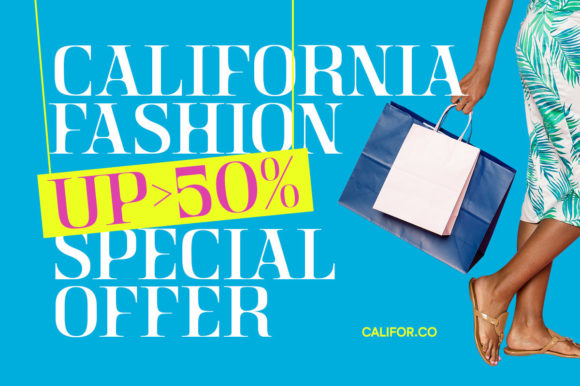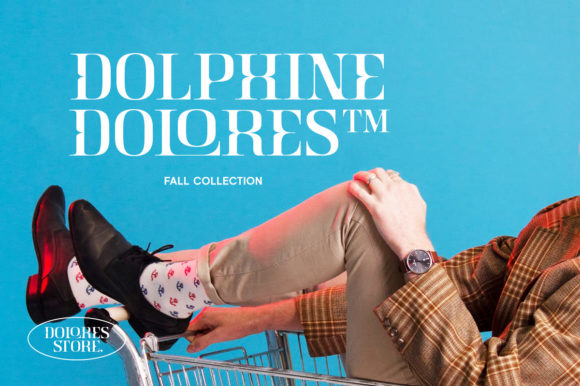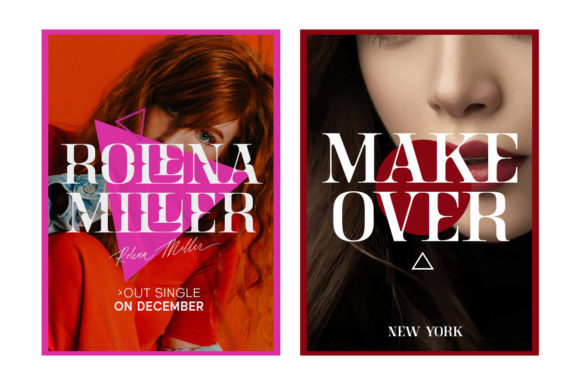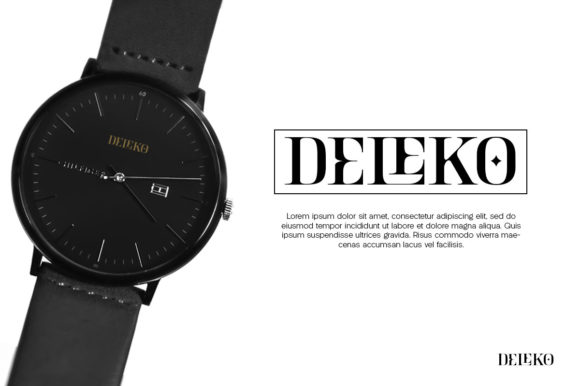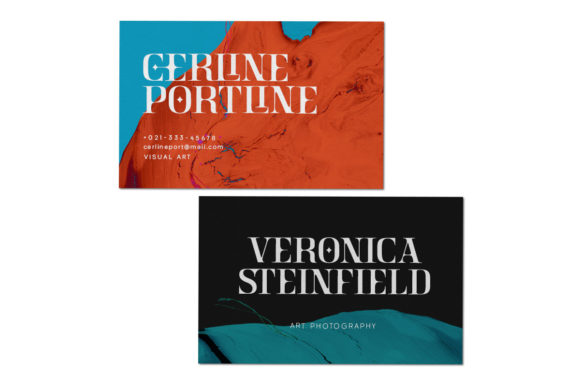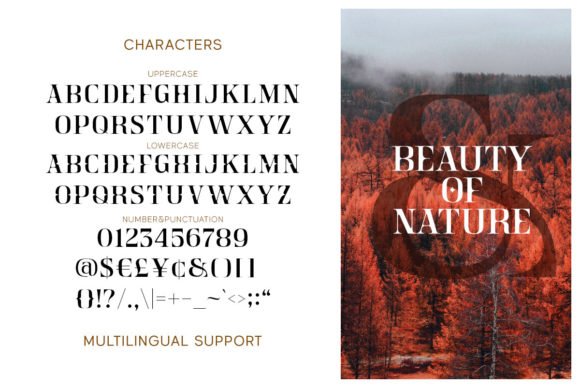
Crainzel Font: Elevate Your Designs with Sophistication and Modernity
In the world of typography, fonts play a crucial role in conveying the tone and personality of a brand or design. With the vast array of fonts available, it can be challenging to find the perfect one that stands out from the crowd. However, if you’re looking for a sophisticated serif font with a unique character and a lovely modern vibe, look no further than Crainzel Font. In this article, we’ll explore the features, benefits, and uses of Crainzel Font, and why it’s an excellent choice for designers and crafters.
What is Crainzel Font?
Crainzel Font is a serif font designed to add a touch of sophistication and elegance to any design project. Its unique characters and modern vibe make it an excellent choice for projects that need to stand out, such as logos, branding, marketing materials, social media posts, business cards, and more. The font’s classic serif design ensures that it remains legible and readable, even at small sizes, making it versatile for various applications.
Key Features of Crainzel Font
- Unique Characters: Crainzel Font boasts unique characters that set it apart from other serif fonts. Its distinctive letterforms add a touch of personality to any design, making it perfect for brands that want to establish a strong visual identity.
- Modern Vibe: Despite being a serif font, Crainzel Font has a modern feel that makes it suitable for contemporary design projects. Its clean lines, subtle curves, and balanced proportions create a sophisticated look that’s both timeless and trendy.
- Sophisticated: Crainzel Font exudes sophistication, making it an excellent choice for high-end brands, luxury products, or professional services. Its elegant design ensures that your brand or design project is perceived as refined and cultured.
Benefits of Using Crainzel Font
So, why choose Crainzel Font for your design projects? Here are some benefits that make it an excellent choice:
- Stand out from the crowd: With Crainzel Font, you can create designs that stand out from the competition. Its unique characters and modern vibe ensure that your brand or design project grabs attention and leaves a lasting impression.
- Enhance brand identity: Crainzel Font can help establish a strong visual identity for your brand. Its distinctive letterforms and sophisticated design create a consistent look that reinforces your brand’s message and values.
- Versatile: Crainzel Font is versatile and can be used for various design projects, from logos and branding to marketing materials, social media posts, and business cards.
Use Cases for Crainzel Font
Crainzel Font is suitable for a wide range of design projects, including:
- Logos and Branding: Create a memorable logo or brand identity with Crainzel Font. Its unique characters and sophisticated design ensure that your brand stands out.
- Marketing Materials: Use Crainzel Font for brochures, flyers, posters, and other marketing materials to add a touch of elegance and sophistication.
- Social Media Posts: Make your social media posts stand out with Crainzel Font. Its modern vibe and unique characters ensure that your posts grab attention and engage your audience.
- Business Cards: Create professional business cards with Crainzel Font. Its classic serif design and sophisticated look make it perfect for business professionals.
In conclusion, Crainzel Font is an excellent choice for designers and crafters looking for a sophisticated serif font with a unique character and a lovely modern vibe. Its versatility, elegance, and distinctive letterforms make it suitable for various design projects, from logos and branding to marketing materials, social media posts, and business cards. With Crainzel Font, you can elevate your designs, establish a strong visual identity, and create a lasting impression on your audience.